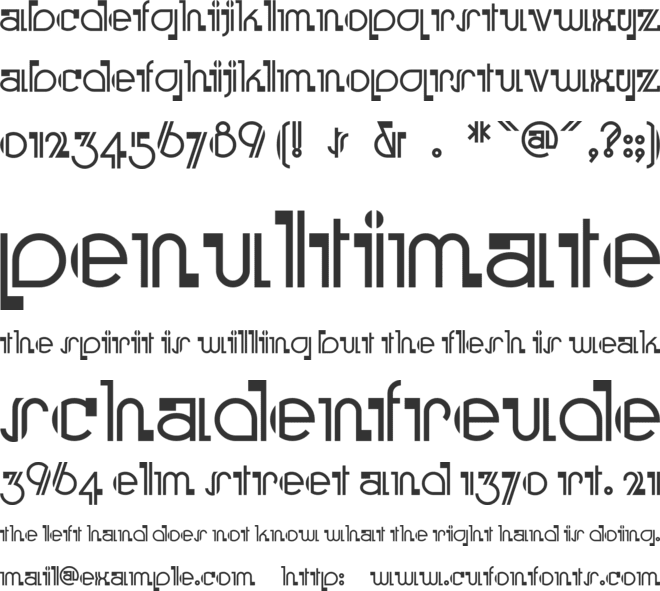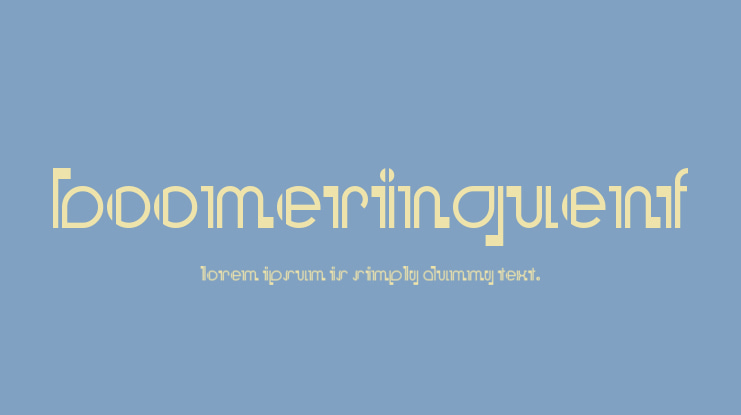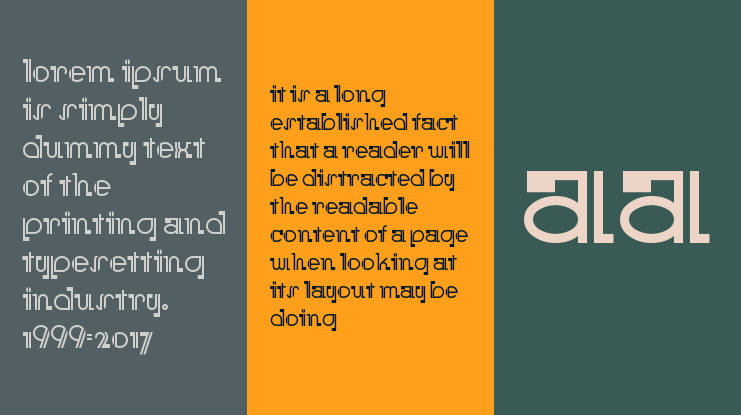
BooMeringueNF Font
This rather strange monocase font is based on lettering from an Australian travel poster, circa 1940. For no particular reason, the font is named after slapstick's most dangerous pie; if you throw one of these babies, YOU better duck!.